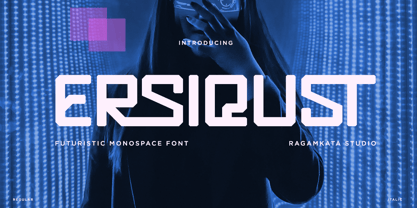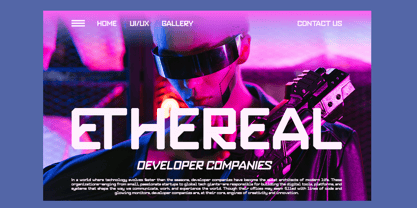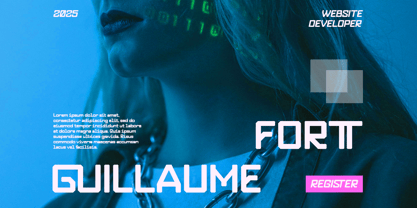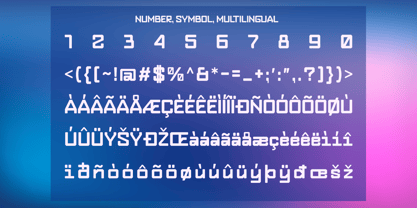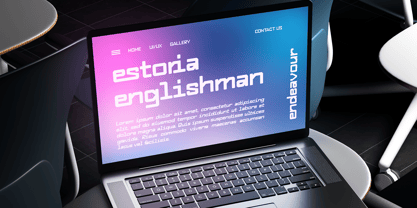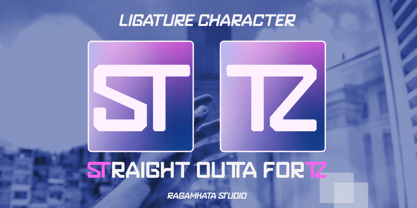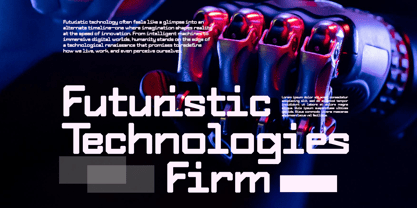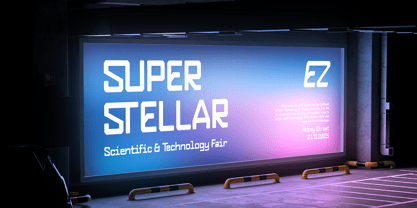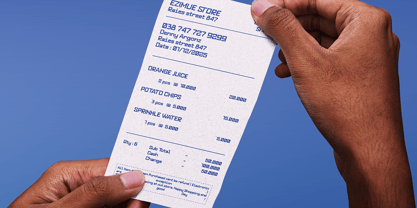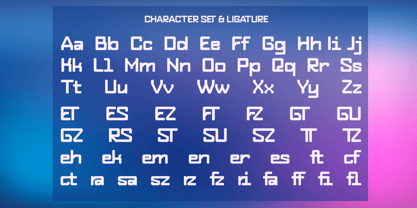
Ersiqust
by RagamKata
The Ersiqust Font Family was designed by Yogiswhara Dio Prakoso Riadi and published by RagamKata. Ersiqust contains 2 styles and family package options.
Designers: Yogiswhara Dio Prakoso Riadi
Publisher: RagamKata
Foundry: RagamKata
Design Owner: RagamKata